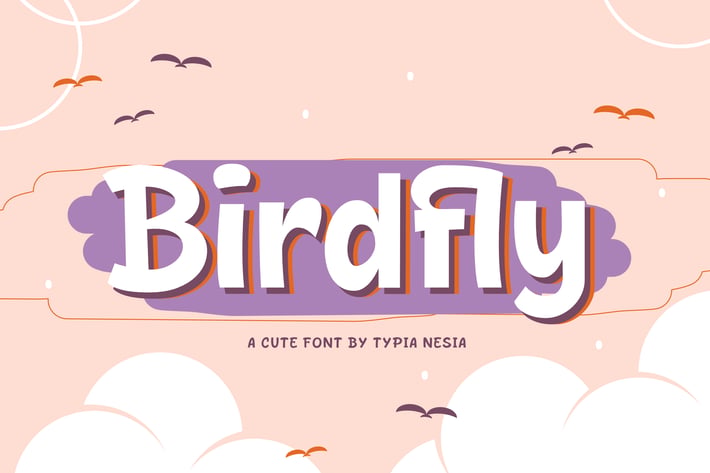
Birdfly - Cute Fancy Font
Birdfly - Cute Fancy Font - Cartoon Fun Playful Font
Suitable for any design needs : logo, branding, modern advertising design, cartoon, animation, kid book, logos, poster quote, book / cover Title, editorial design, website / blog, card, custom mug, pillow, t-shirts, and any hand-lettered needs.